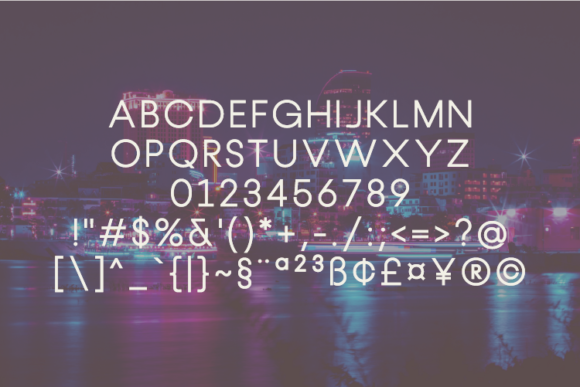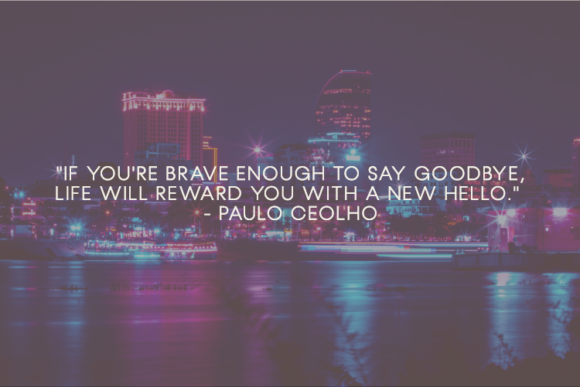
Discover the Beauty of Dolmand Font: Elevate Your Designs with this Stunning Sans Serif Font
Are you tired of using the same old fonts in your designs? Look no further than Dolmand Font, a great sans serif font that is sure to take your creations to the next level. With its clean and modern aesthetic, Dolmand Font is perfect for designers and crafters who want to add a touch of sophistication and elegance to their work. In this article, we’ll explore the features and benefits of Dolmand Font, and show you how to use it to create beautiful headings, gorgeous invitations, stunning logos, and so much more!
What is Dolmand Font?
Dolmand Font is a sans serif font that is designed to be versatile and easy to read. Its clean lines and simple shapes make it perfect for use in a variety of design projects, from digital media to print materials. Whether you’re creating a logo, invitation, or heading, Dolmand Font is a great choice for adding a touch of modern style to your work.
Key Features of Dolmand Font
- Clean and Modern Aesthetic: Dolmand Font has a sleek and contemporary look that is sure to make your designs stand out.
- Versatile: Dolmand Font can be used in a variety of design projects, from digital media to print materials.
- Easy to Read: The simple shapes and clean lines of Dolmand Font make it easy to read, even at small sizes.
- High-Quality: Dolmand Font is a high-quality font that is designed to produce crisp and clear results.
How to Use Dolmand Font in Your Designs
Dolmand Font is a versatile font that can be used in a variety of design projects. Here are a few ideas to get you started:
Create Beautiful Headings
Dolmand Font is perfect for creating stunning headings that will grab the attention of your audience. Use it to add a touch of elegance and sophistication to your blog posts, articles, and website pages.
Design Gorgeous Invitations
Whether you’re planning a wedding, birthday party, or other special event, Dolmand Font is a great choice for creating beautiful invitations. Its clean and modern aesthetic makes it perfect for formal and informal events alike.
Make Stunning Logos
Dolmand Font is also a great choice for creating stunning logos that will help your brand stand out. Its simple shapes and clean lines make it easy to recognize and remember.
Tips for Getting the Most Out of Dolmand Font
Here are a few tips for getting the most out of Dolmand Font:
- Experiment with Different Sizes: Dolmand Font looks great at a variety of sizes, from small and delicate to large and bold.
- Play with Color: Dolmand Font can be used with a variety of colors to add visual interest to your designs.
- Pair it with Other Fonts: Dolmand Font can be paired with other fonts to create a unique and visually appealing design.
Dolmand Font is a great sans serif font that is sure to elevate your designs to the next level. With its clean and modern aesthetic, versatility, and ease of use, it’s perfect for designers and crafters who want to add a touch of sophistication and elegance to their work. Whether you’re creating beautiful headings, gorgeous invitations, stunning logos, or something else, Dolmand Font is a great choice. So why wait? Download Dolmand Font today and start creating stunning designs that will leave a lasting impression!